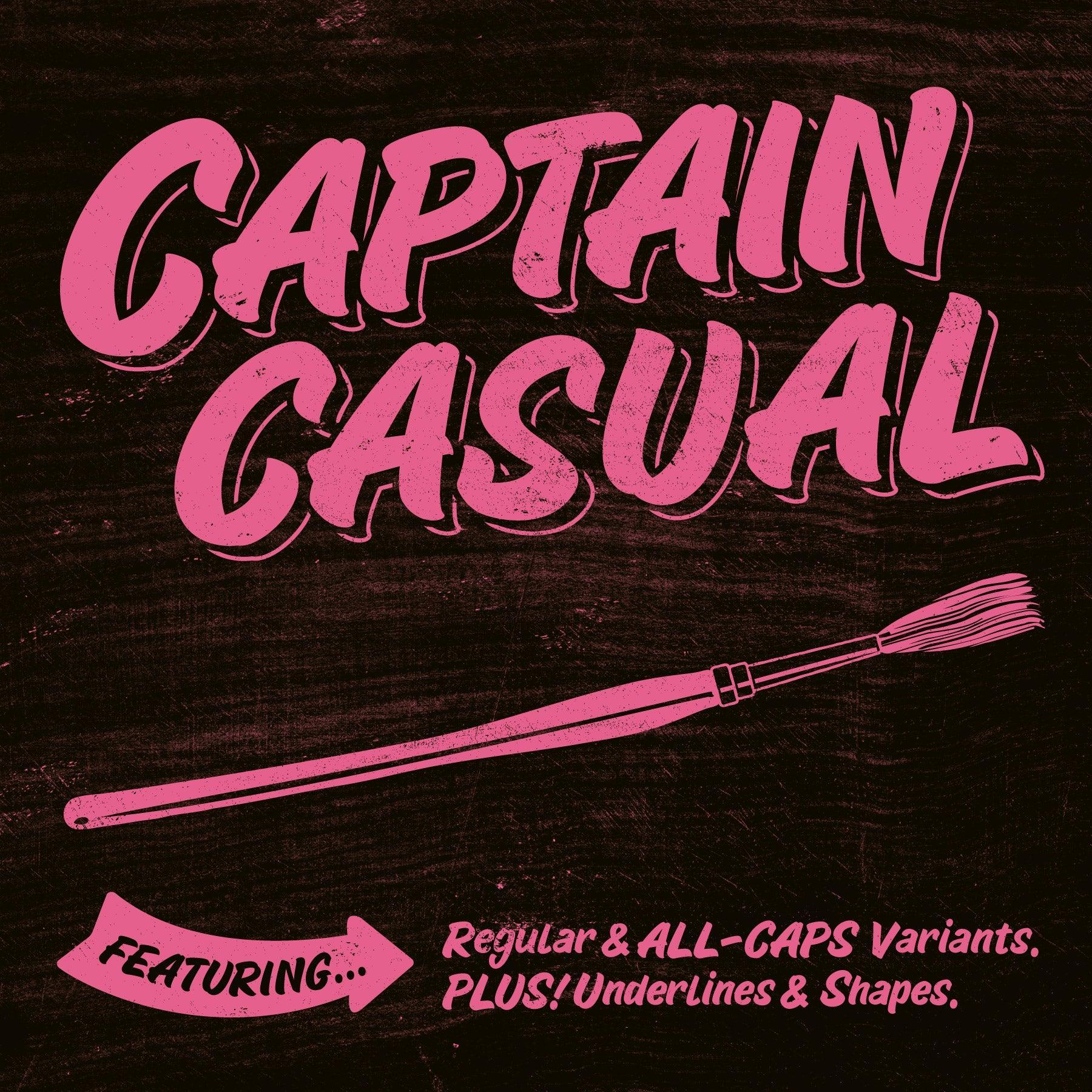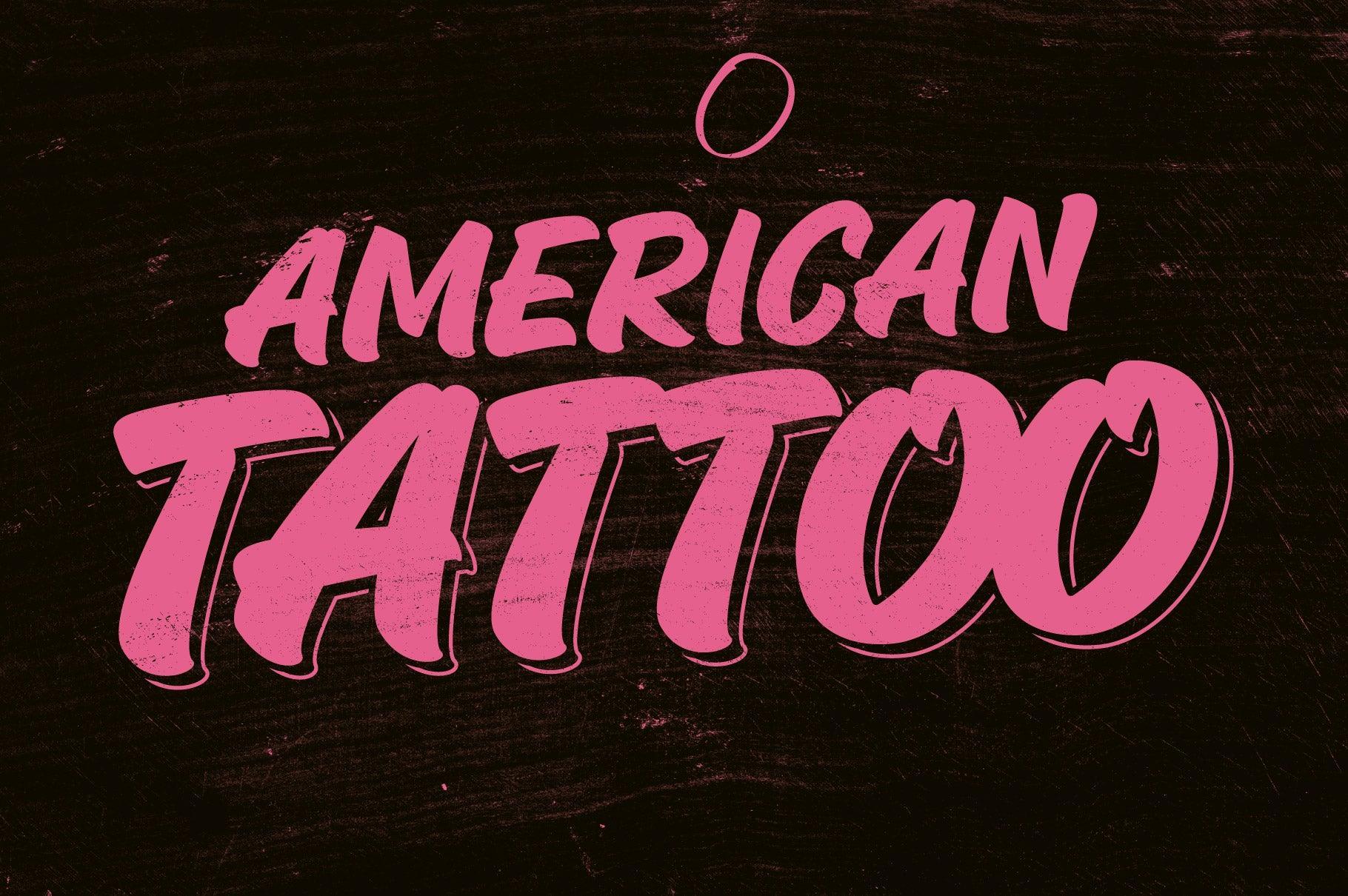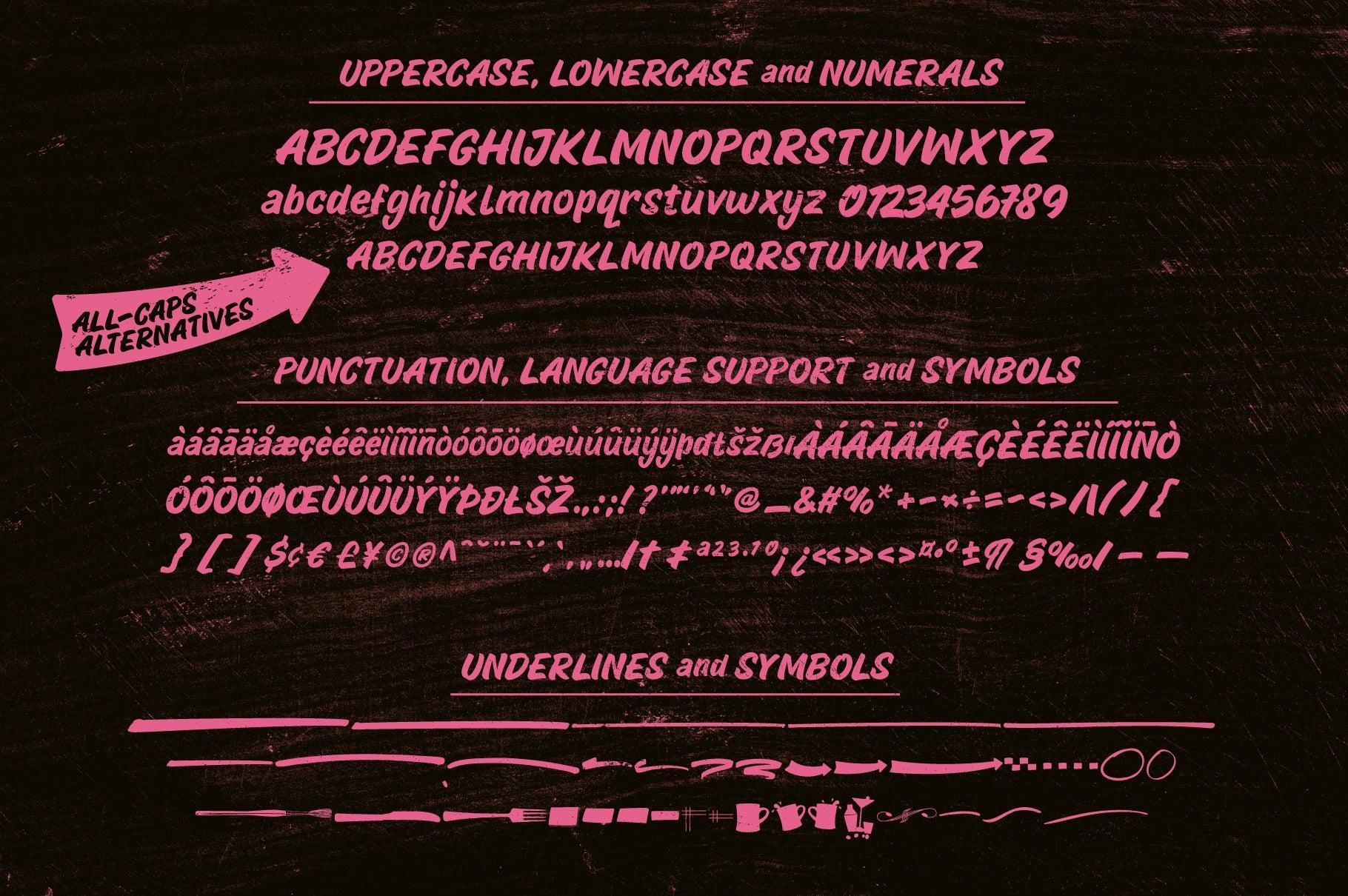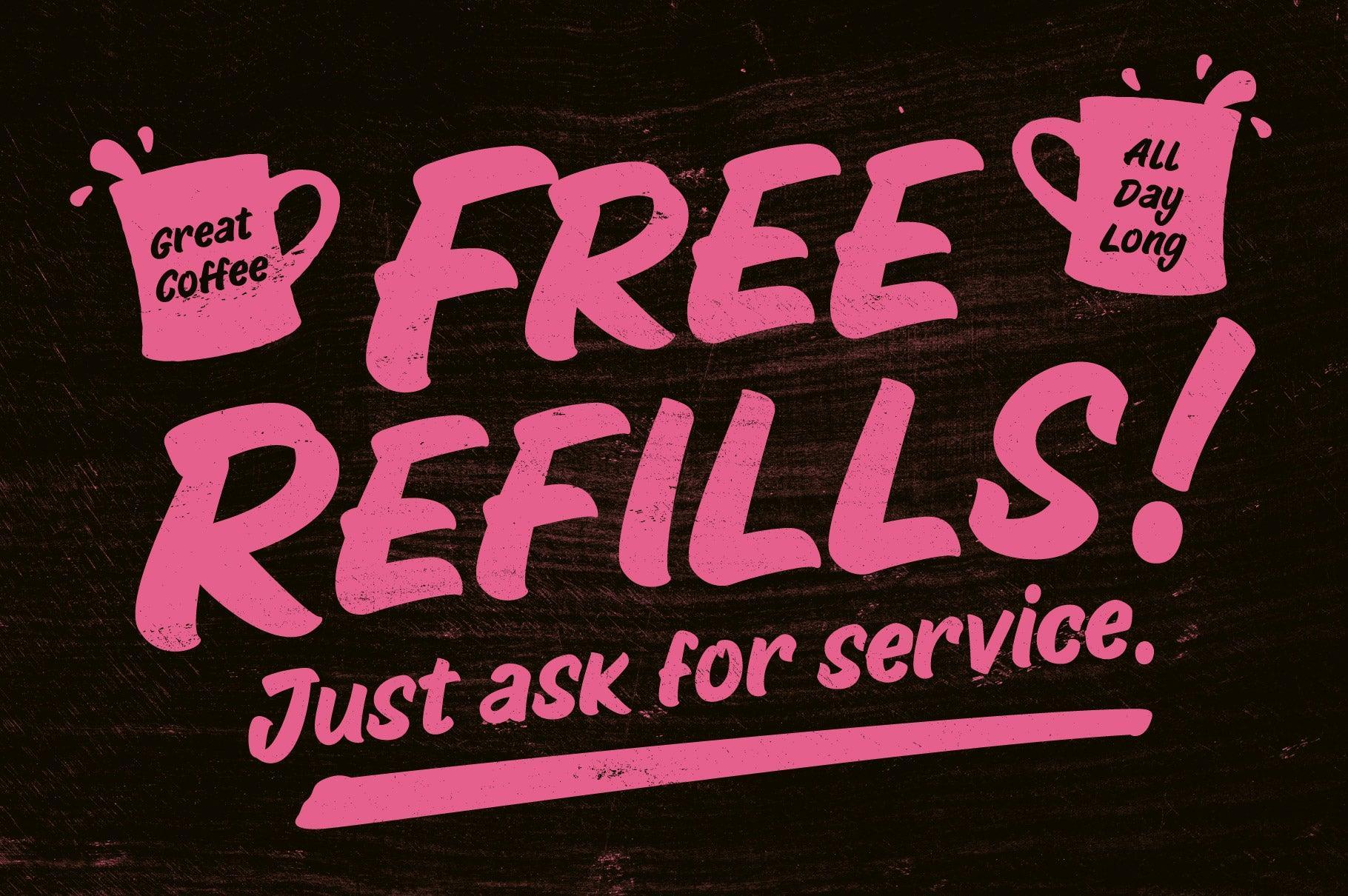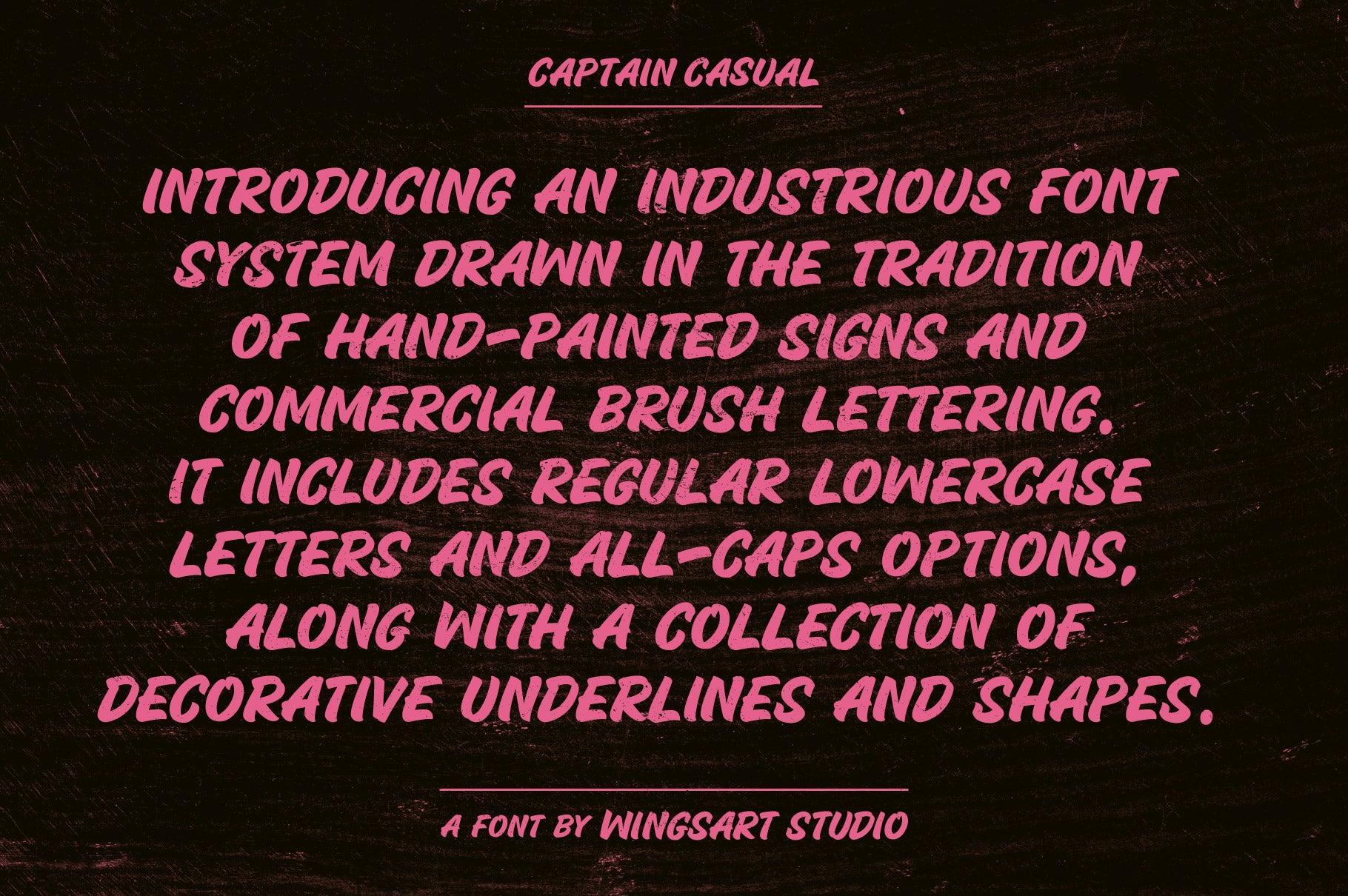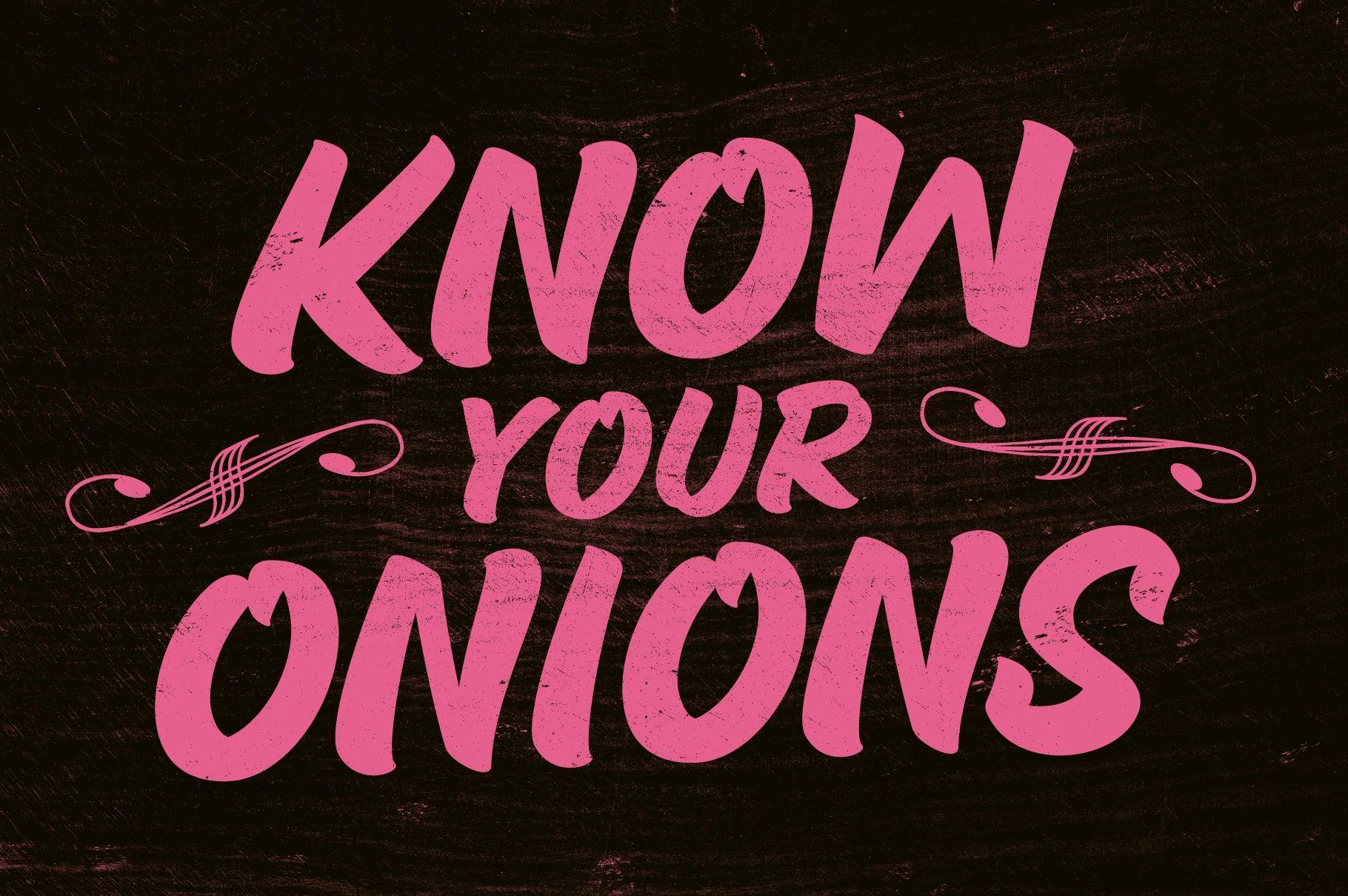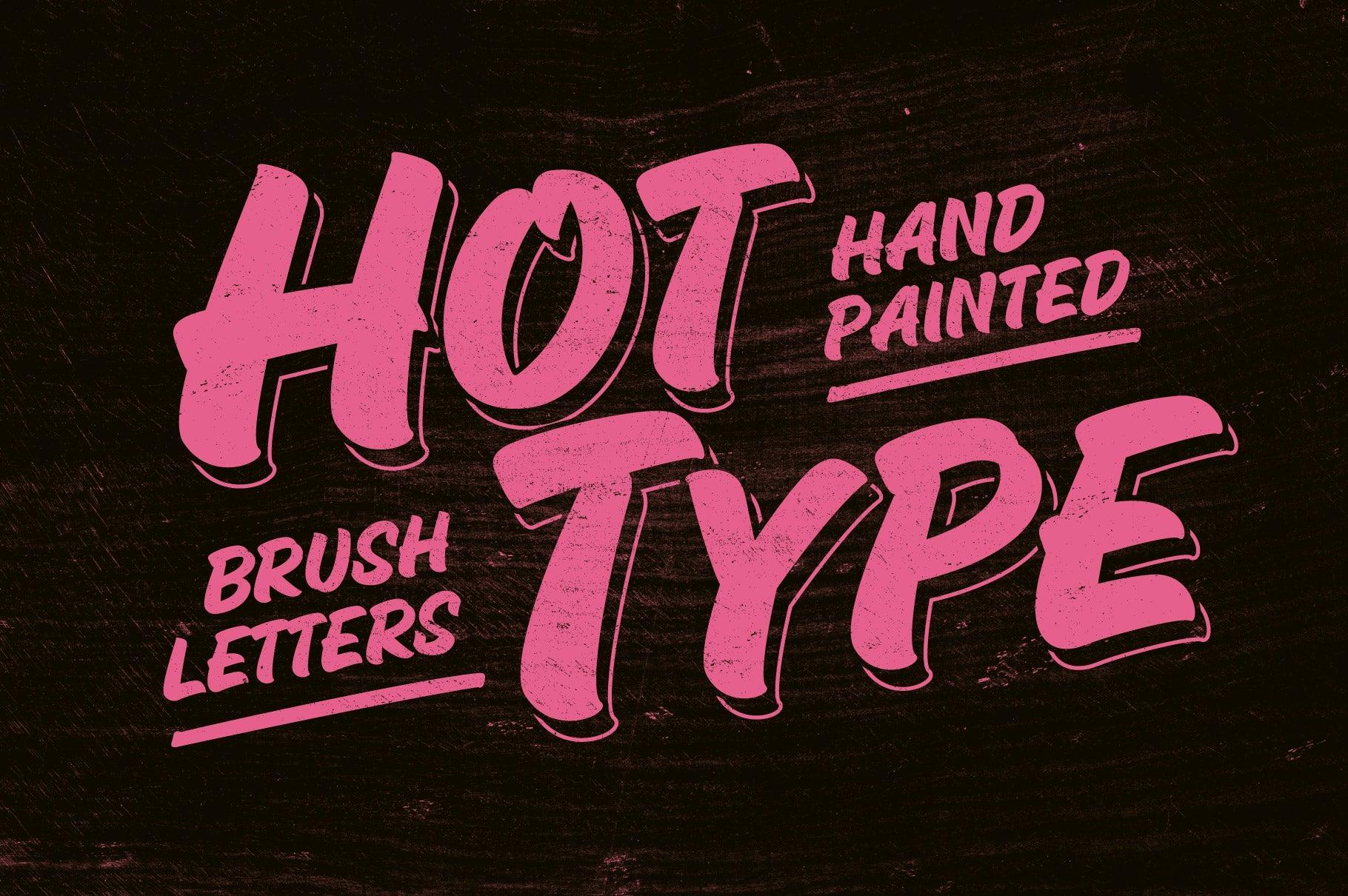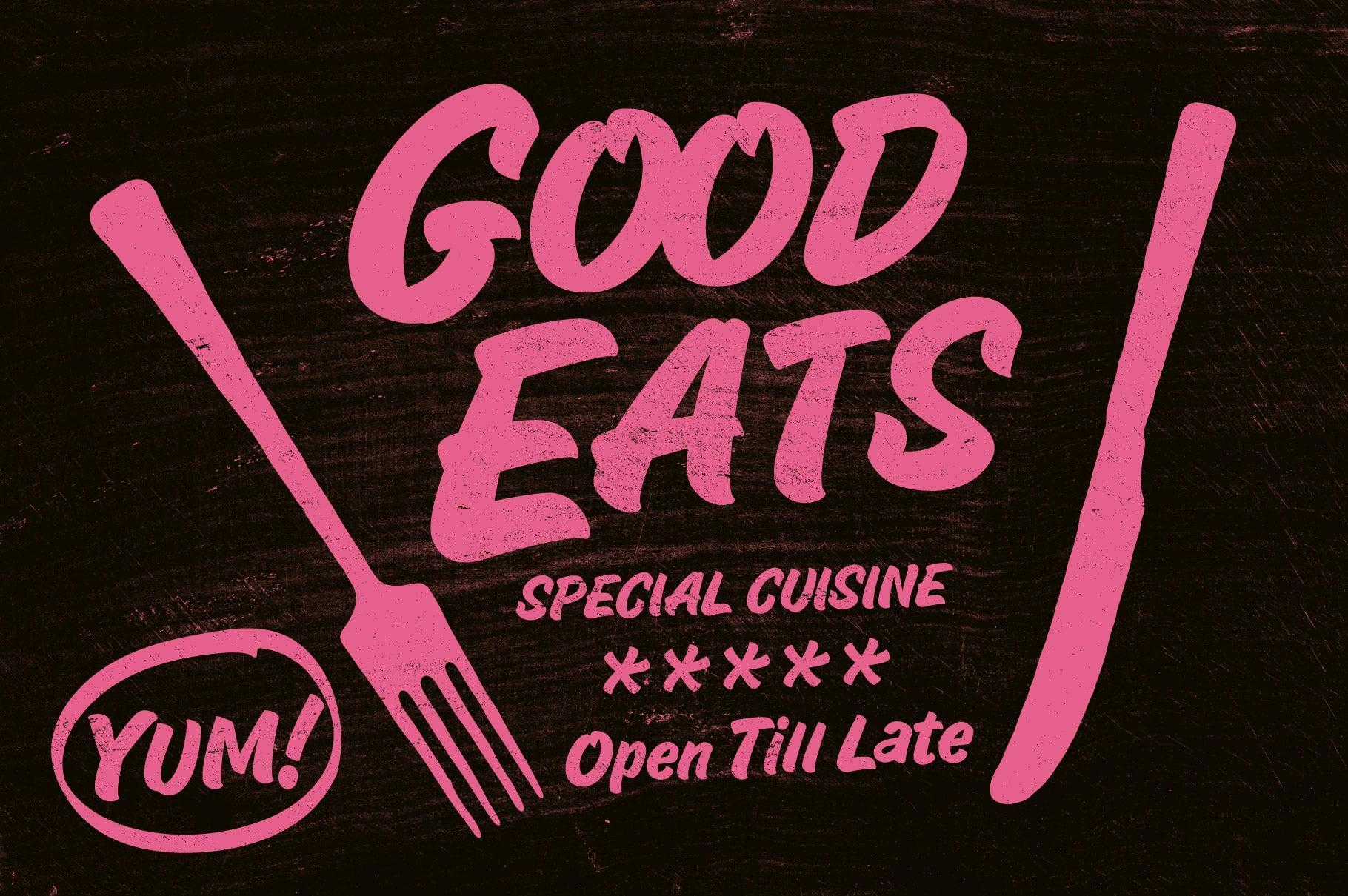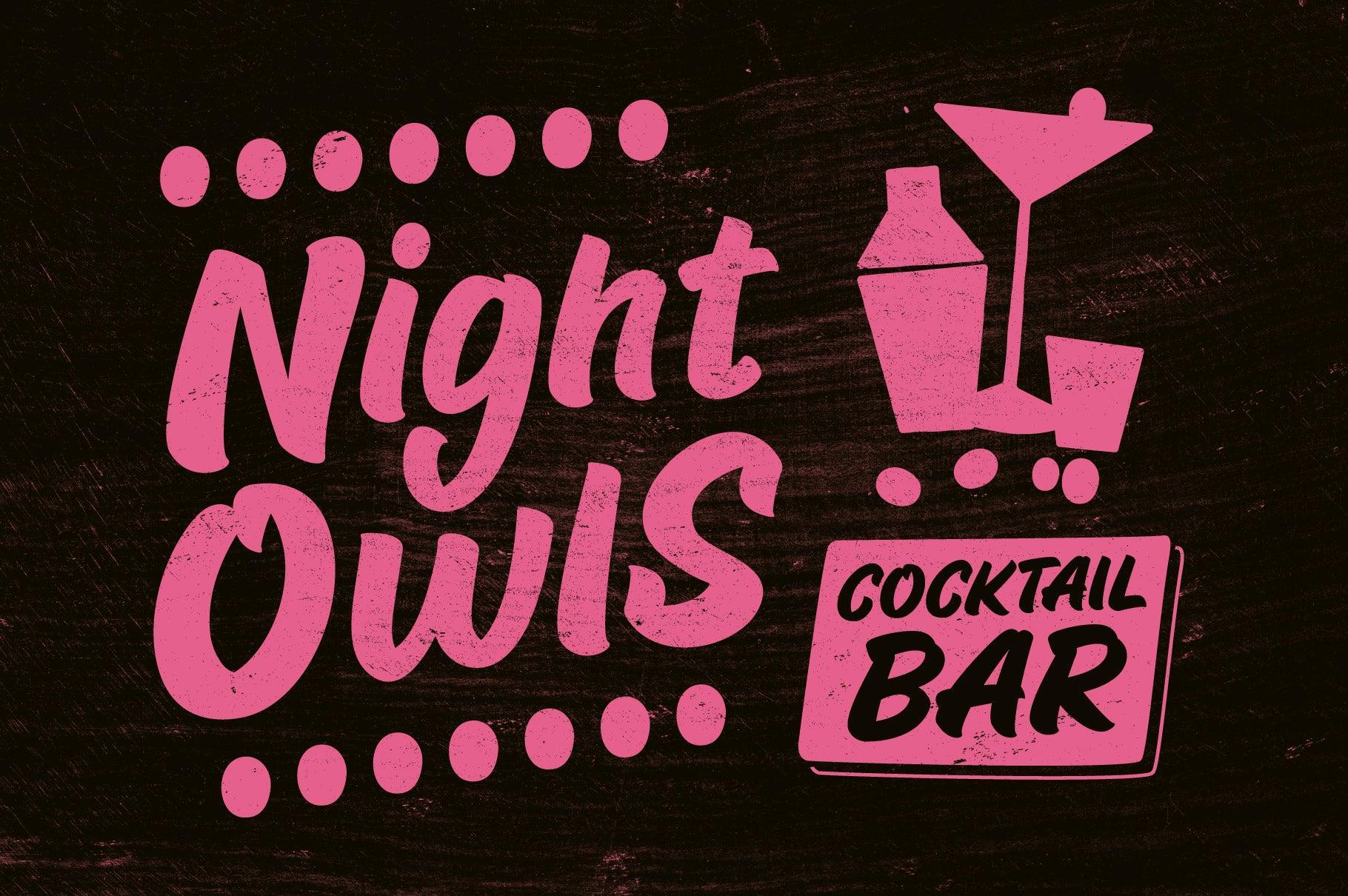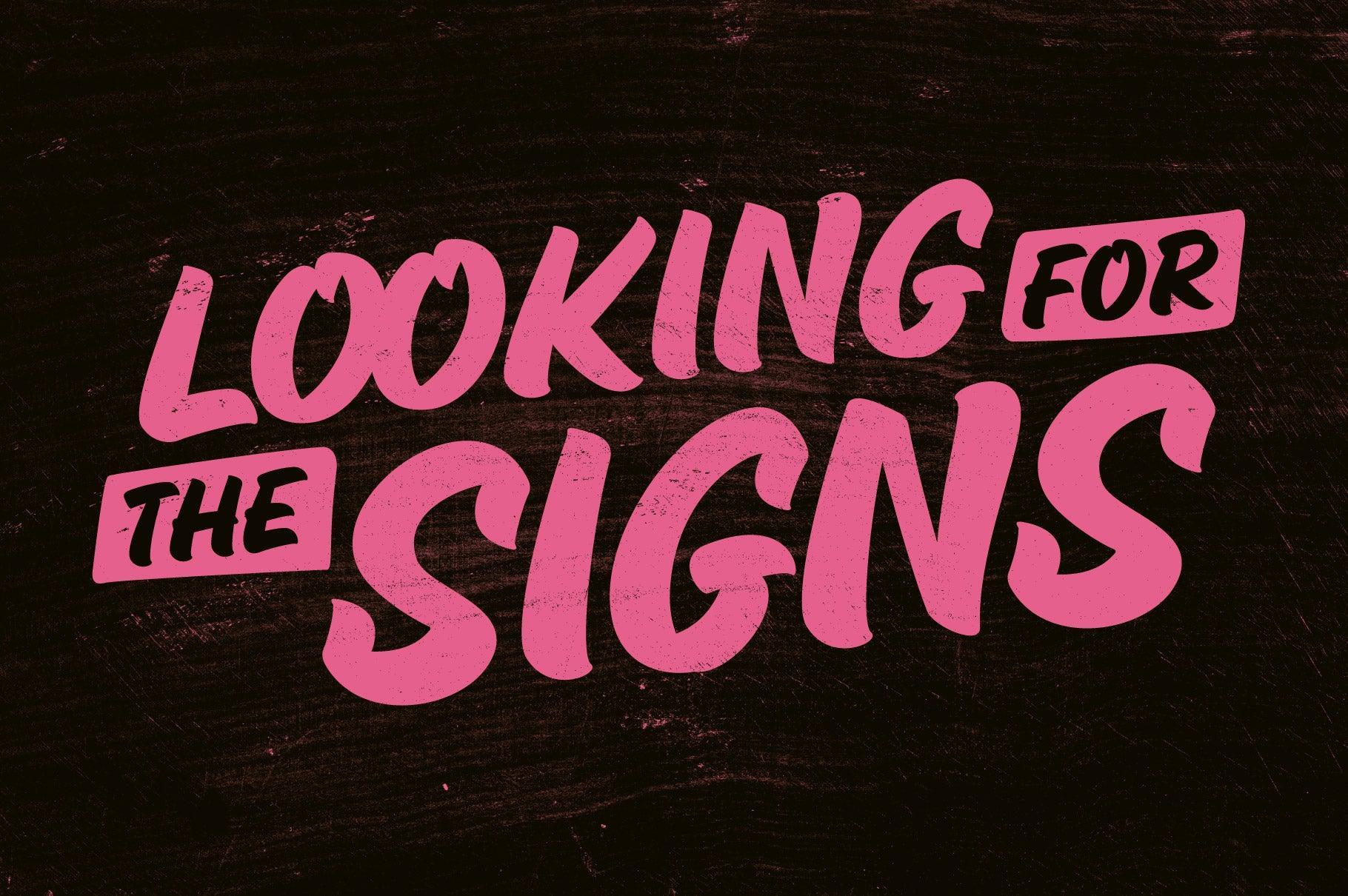
Captain Casual: Sign Painter Font
Captain Casual: Sign Painter Font is a brush font inspired by classic hand-painted signs, featuring a complete set of uppercase and lowercase characters, numerals, punctuation, and symbols. It includes both a regular and all-caps variant, along with decorative underlines and shapes, available in OTF, TTF, and WOFF formats.
Ideal for vintage-inspired graphic design and commercial signage. Perfect for storefronts, branding, and promotional materials, ensuring a legible yet laid-back aesthetic that captures attention and conveys authenticity.
Christopher King (aka Wingsart Studio) is a graphic font designer with a background in publishing, TV, and film. His work leans towards a hand-drawn look that's particularly suited to headers and titles, already used by global brands such as Disney, Apple, and Marvel.